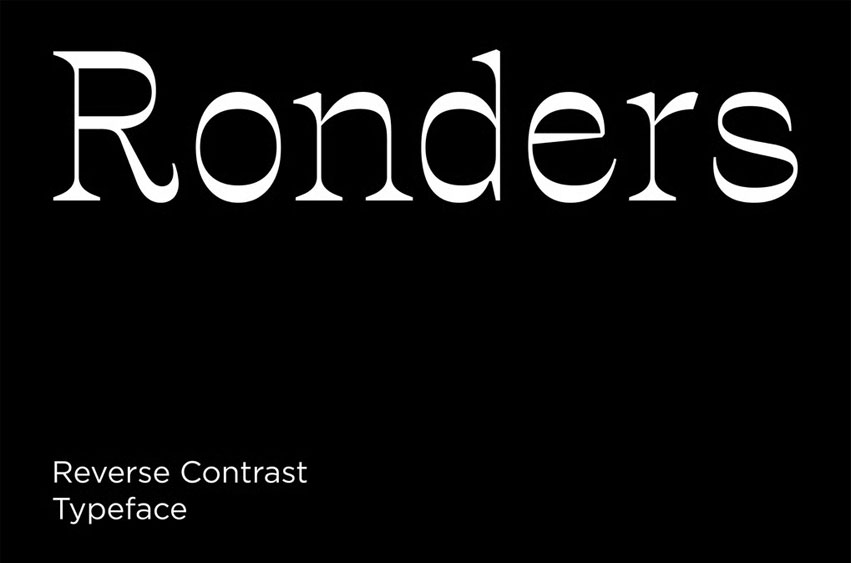
Ronders Font is a modern reverse-contrast serif typeface designed to bring a bold, stunning, and unconventional visual statement into your work. With thicker horizontal strokes and refined vertical thins, Ronders creates an elegant yet striking contrast that feels fresh and contemporary. Perfectly crafted for display use, this font shines in branding, editorial layouts, logotypes, packaging, luxury fashion, poster headlines, signage, and more.
Its stylish serif shapes deliver a sophisticated personality, making every text look exclusive and eye-catching while maintaining great readability. Ronders also includes multilingual support to help your global project look polished and professional.
Whether you’re designing a luxury brand, a magazine cover, or a premium product identity, Ronders will elevate your typography with confidence and class. This font comes in two styles: Regular and Slanted, giving you flexibility. It includes uppercase and lowercase letters, numbers, punctuation, and multilingual support, available in OTF, TTF, and WOFF formats.